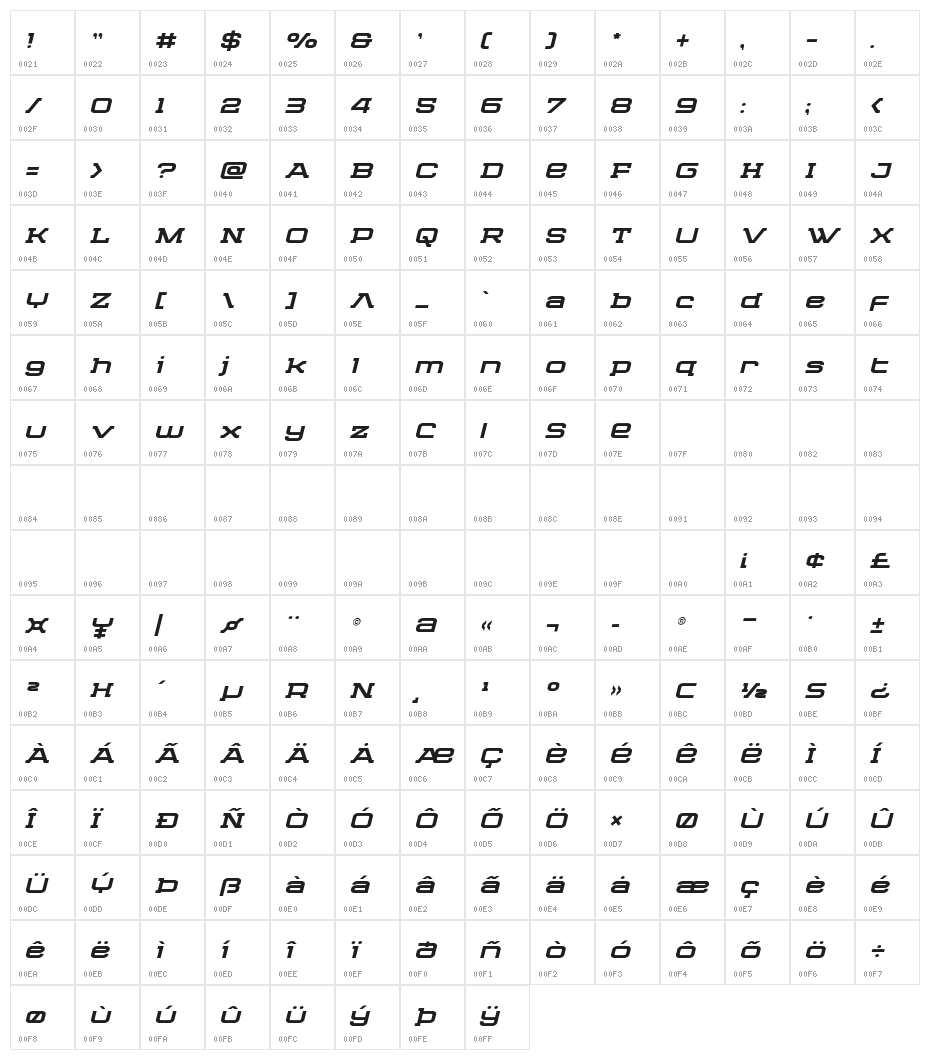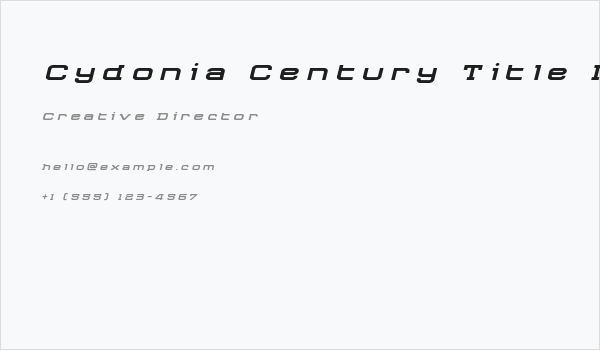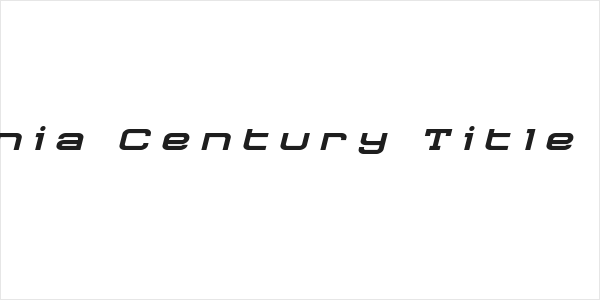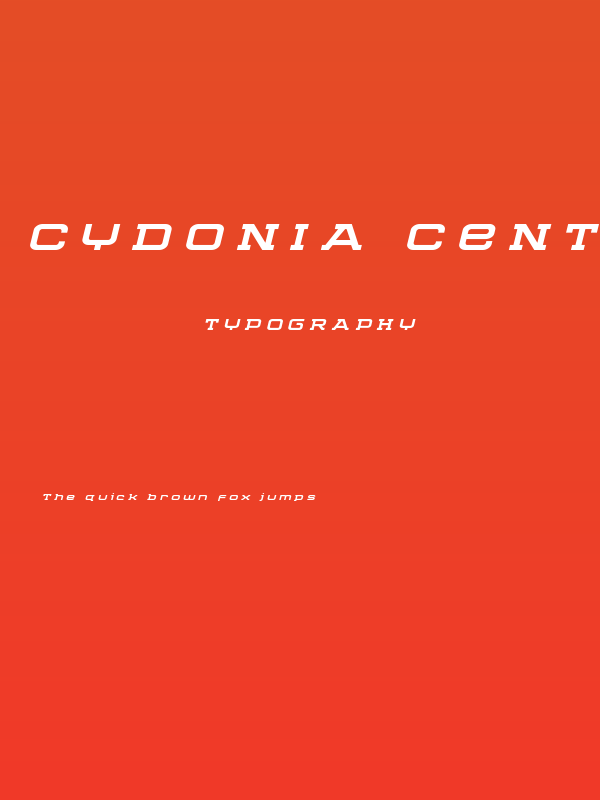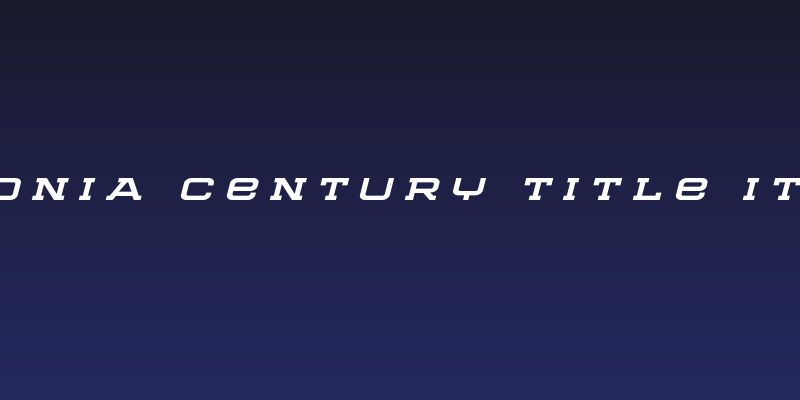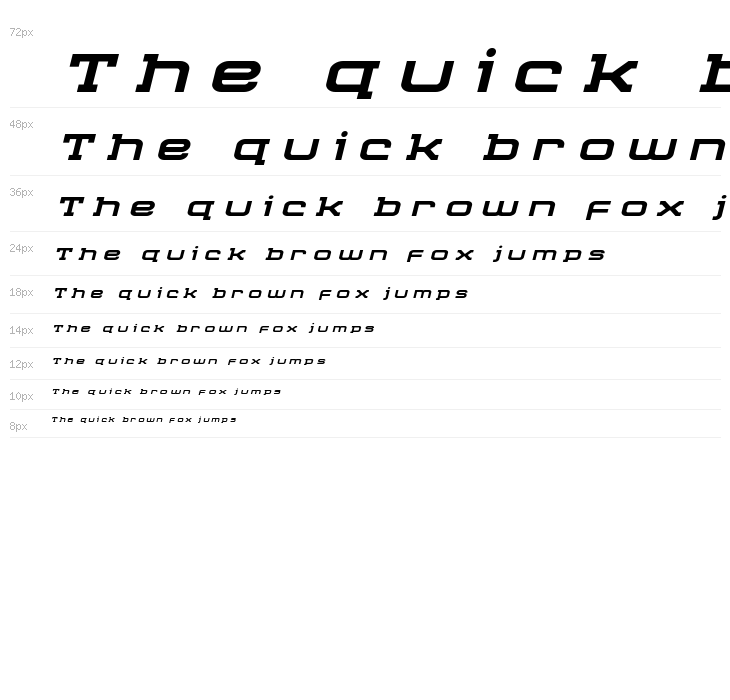
Cydonia Century Title Italic Font
Cydonia Century Title Italic Description
This font exhibits a modern and sleek design with a distinct italic slant, giving it a dynamic and forward-moving appearance. The characters are well-defined with a consistent stroke width, offering a clean and professional look. The uppercase letters are bold and commanding, while the lowercase letters maintain a harmonious balance with slightly rounded edges. The numerals are clear and easy to read, making them suitable for various applications. Special characters are designed with the same attention to detail, ensuring uniformity across the font. Overall, this font combines elegance with a contemporary style, making it versatile for numerous design projects.